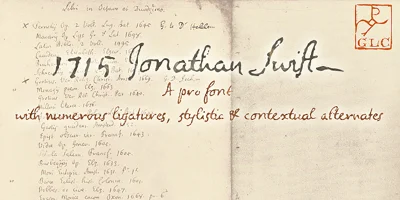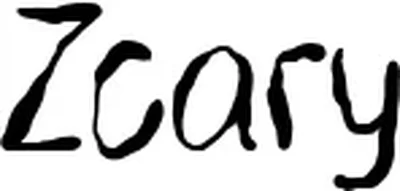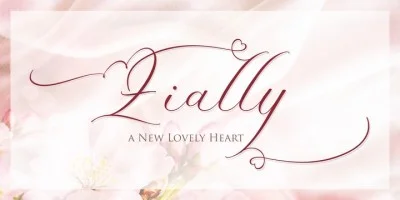
Creative Project Ideas Using Handwritten Fonts
Handwritten fonts add a personal, warm touch to any design, making it feel more genuine and inviting. Whether you’re working on a blog post, an invitation, or an Instagram post, handwritten fonts are perfect for creating that custom, “handmade” feel.
Here are several creative ways to use handwritten fonts to elevate your projects.
Personalized Blog Posts
Handwritten fonts work beautifully for blog posts that require a personal or intimate tone.
Use it for headings or subheadings to create an inviting, approachable vibe.
For more informal blog posts (like personal stories, travel diaries, or lifestyle content), using a handwritten font for the introductory paragraph can add warmth and character.
Pair it with a clean sans-serif font for body text to keep readability intact while still achieving that artistic touch.
Example: A blog post about a home renovation could start with a friendly handwritten heading like, "Welcome to My Cozy New Home!" to give it a more personal, relatable feel.
Invitations & Event Stationery
El yazısı fontları, özellikle davetiye ve etkinlik materyalleri gibi projelerde çok popülerdir. Düğün davetiyesinden doğum günü partisi davetlerine kadar, el yazısı fontları zarif ve samimi bir hava yaratır.
Wedding Invitations: A cursive or flowing handwritten font can make your invitation feel special, elegant, and one-of-a-kind. Pair with some decorative flourishes or an accent font to highlight important details.
Baby Showers or Birthday Invitations: Soft, playful handwritten fonts work wonders to create a friendly, fun atmosphere.
Event Programs or Thank You Cards: Use handwritten fonts to make attendees feel appreciated and welcomed.
Tip: Choose a handwritten font that reflects the style of the event. For a formal wedding, go with something refined, like Dancing Script or Great Vibes, whereas a fun birthday party might call for something playful like Pacifico.
Instagram Posts & Stories
El yazısı fontları, sosyal medya tasarımlarında kişisel bir hava yaratır ve markaların daha samimi bir bağ kurmasına yardımcı olabilir. Instagram gibi görsel odaklı platformlarda bu fontlar oldukça dikkat çekici olabilir.
Quote Graphics: Use a handwritten font to display inspiring or humorous quotes. Handwritten fonts add charm and can make your content feel more relatable.
Story Highlights: Customize your Instagram story highlight covers with handwritten fonts. This can add a personal touch to your profile and make it stand out.
Promotions & Announcements: Make promotional posts or event announcements feel more exciting and personal by using an expressive handwritten font.
Example: Create an Instagram post for a new product release with a handwritten font that says “So Excited to Share This With You!” over a lifestyle photo.
Custom Branding & Logo Design
For businesses, using a handwritten font can create a unique brand identity that feels approachable and authentic.
Personalized Brands: For small businesses or creative entrepreneurs, handwritten fonts can give off a custom, artisanal vibe that shows your dedication to craftsmanship.
Logos: A handwritten logo or brand name gives the design a personal touch and can make your brand feel more approachable and relatable to your audience.
Example: A boutique or coffee shop may use a handwritten font to create a logo that communicates warmth, care, and authenticity.
Packaging & Product Labels
Handwritten fonts are also an excellent choice for packaging design because they can evoke emotions and create a memorable experience.
Handcrafted Products: Whether you’re selling candles, skincare, or homemade treats, handwritten fonts convey that the product is lovingly made and adds that personal touch.
Seasonal or Limited Edition Products: Use a handwritten font for special packaging designs or labels to make the product feel exclusive and unique.
Example: A handmade soap company might use a handwritten font for product labels to emphasize its natural, personal approach to beauty.
Greeting Cards & Special Messages
Whether for birthday cards, thank you notes, or holiday greetings, handwritten fonts can make these messages more heartfelt and memorable.
Use a flowing handwritten font for special messages to give them an extra personal touch.
For a more playful or whimsical feel, use bold and quirky handwritten fonts that reflect the celebratory mood.
Example: A thank-you card with a handwritten font like Amatic SC can make a simple note feel more intimate and thoughtful.
Recommended Handwritten Fonts for Your Creative Projects
Here are a few popular handwritten fonts that will elevate your next design:
Dancing Script (Free – Google Fonts)
Great Vibes (Free – Google Fonts)
Pacifico (Free – Google Fonts)
Lobster (Free – Google Fonts)
Brush Script (Paid)
Allura (Free – Google Fonts)
Shadows Into Light (Free – Google Fonts)
Sacramento (Free – Google Fonts)
Kaushan Script (Free – Google Fonts)
Final Thoughts
Handwritten fonts are perfect for adding a personal and authentic feel to your designs, whether you’re creating invitations, social media posts, or custom branding. These fonts evoke emotions, grab attention, and help communicate the essence of your message in a creative way.
So go ahead, get creative with handwritten fonts, and make your designs stand out with that personal touch.